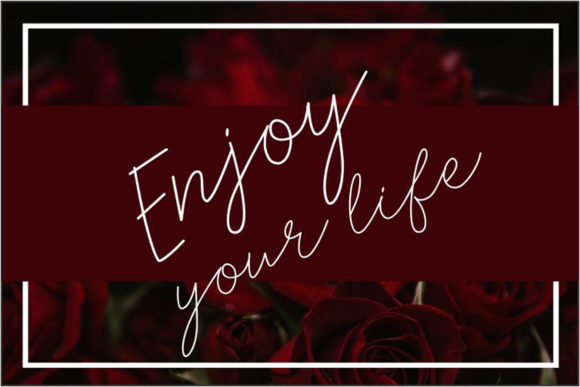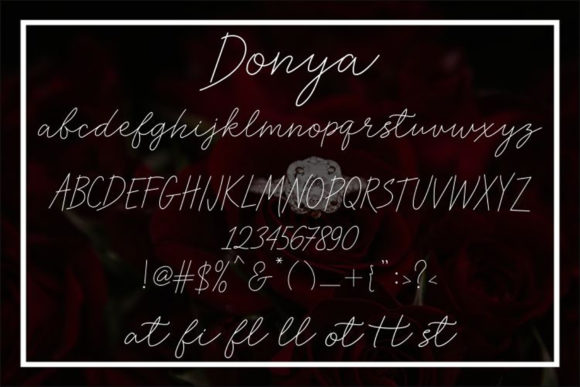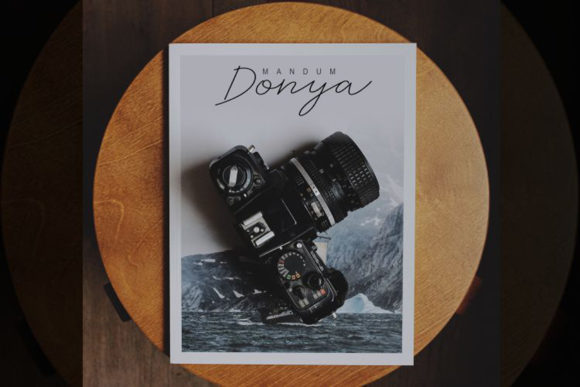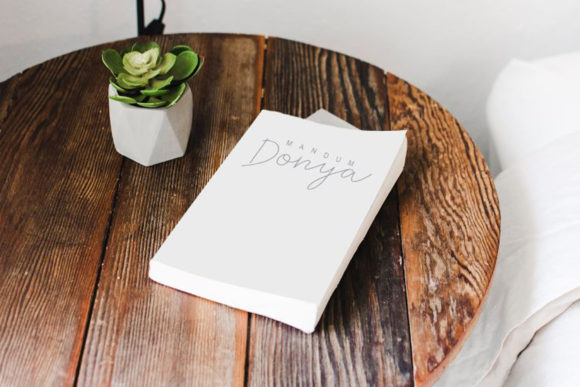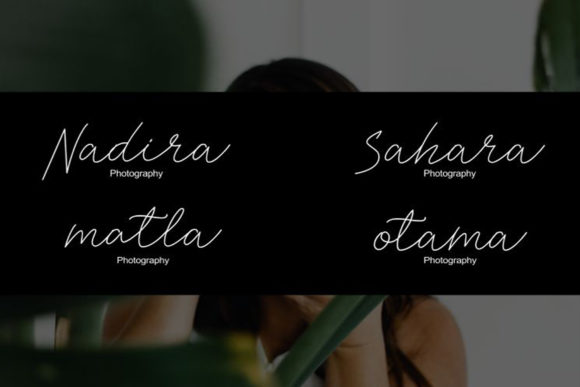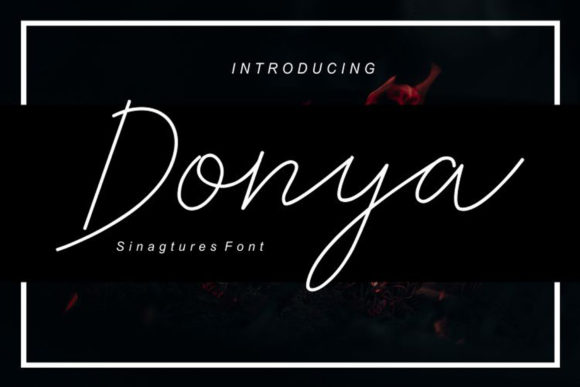
Discover the Charm of Donya Font: A Unique Handwritten Style
Are you tired of using the same old fonts in your designs? Look no further than Donya Font, a sweet and original handwritten font that adds a touch of authenticity to any project. With its unique twist, Donya is sure to inspire you and take your designs to the next level.
What Makes Donya Font So Special?
Donya Font is a one-of-a-kind handwritten font that boasts a distinctive charm. Its authentic appeal lies in its imperfections, which give it a warm and cozy feel. The font’s unique twist sets it apart from other handwritten fonts, making it perfect for designers and crafters looking to add a personal touch to their work.
The Story Behind Donya Font
Donya Font is more than just a font – it’s a way to connect with your audience on a deeper level. Its sweet and gentle curves evoke a sense of nostalgia and warmth, making it perfect for projects that require a personal touch. Whether you’re designing a logo, creating a craft project, or working on a branding campaign, Donya Font is the perfect choice.
Key Features of Donya Font
- Unique and Original: Donya Font is a one-of-a-kind handwritten font that will set your designs apart from the rest.
- Sweet and Gentle Curves: The font’s smooth curves and rounded edges give it a warm and inviting feel.
- Authentic Appeal: Donya Font’s imperfections and irregularities make it feel authentic and handcrafted.
- Versatile: Donya Font can be used for a wide range of projects, from logos and branding to crafting and DIY projects.
How to Use Donya Font in Your Designs
Donya Font is incredibly versatile and can be used in a variety of design projects. Here are a few ideas to get you started:
- Logos and Branding: Use Donya Font to create a unique and memorable logo that sets your brand apart.
- Crafting and DIY Projects: Add a personal touch to your crafting and DIY projects with Donya Font.
- Social Media Graphics: Use Donya Font to create eye-catching social media graphics that will help your brand stand out.
- Wedding and Event Stationery: Donya Font is perfect for wedding and event stationery, adding a touch of elegance and sophistication.
Tips for Pairing Donya Font with Other Fonts
Donya Font can be paired with a variety of fonts to create a unique and visually appealing design. Here are a few tips for pairing Donya Font with other fonts:
- Pair with a Serif Font: Pair Donya Font with a serif font for a classic and elegant look.
- Pair with a Script Font: Pair Donya Font with a script font for a more feminine and whimsical look.
- Pair with a Bold Font: Pair Donya Font with a bold font for a striking and eye-catching design.
Donya Font is a unique and original handwritten font that adds a touch of authenticity to any design project. With its sweet and gentle curves, Donya Font is perfect for designers and crafters looking to add a personal touch to their work. Whether you’re designing a logo, creating a craft project, or working on a branding campaign, Donya Font is the perfect choice.
Get Inspired by Donya Font